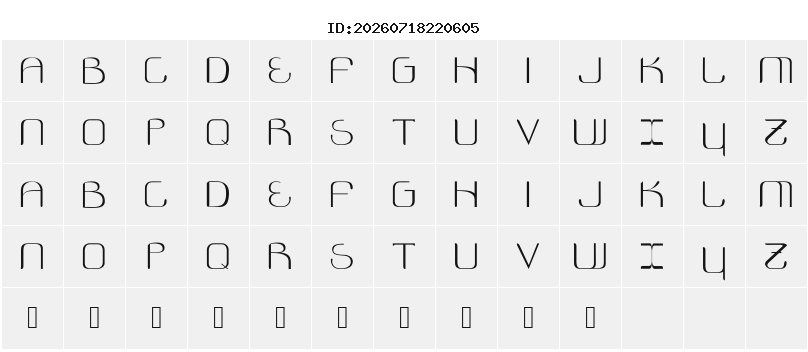
• Font Name: Cosmonautica
• Full Font Name: Cosmonautica
About Cosmonautica.ttf
Cosmonautica.ttf is a modern, elegant sans-serif font designed for ultimate readability and visual harmony. Perfect for branding, headlines, web design, and print materials.